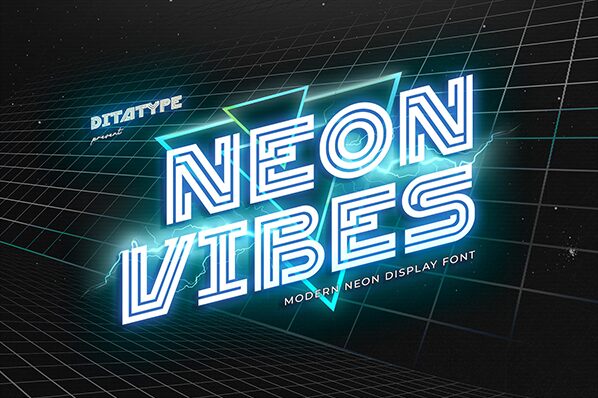
Neon Vibes
Neon Vibes font, designed by Ditatype, embodies a striking fusion of futuristic aesthetics and vibrant neon appeal. Its bold lettering captivates attention, while the expanded form adds a sense of dynamism and robustness. Each character exudes a lively energy reminiscent of bustling city nights illuminated by electrifying lights.
This font shines in creative contexts where bold statements are essential—perfect for nightlife promotions, music events, or digital media projects that seek to evoke excitement and modernity. Its unique style makes it an ideal choice for branding initiatives aiming to stand out in a crowded marketplace. Embrace Neon Vibes for designs that resonate with energy and flair, ensuring your message is both visually compelling and unforgettable.